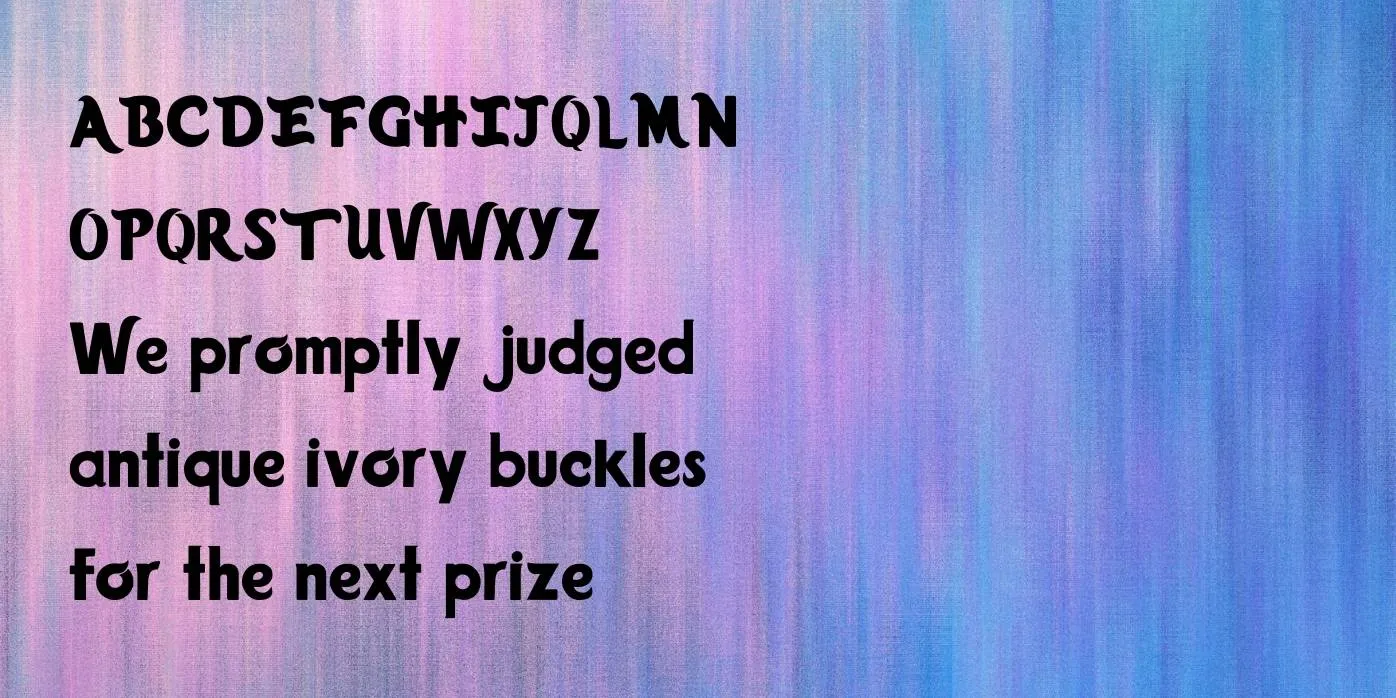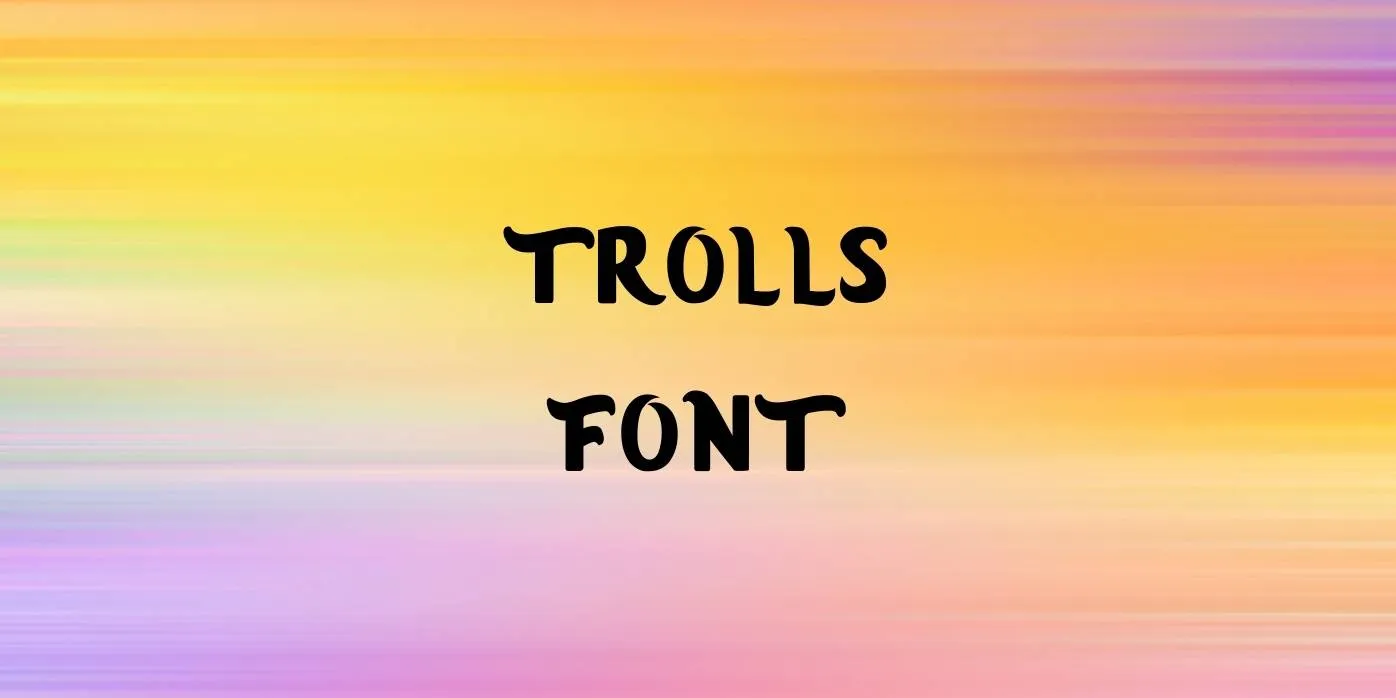
Trolls Font
Troll font is a Fun typeface that got from the American animated type movie “Trolls”. It belongs to a Fancy Font Family and the designer of this typeface is Jonathan Lopez. The font family is free for personal use only. Due to its glyphs and stylish characters, the font family is so popular.
It has uppercase and lowercase letters only but its playful characters are very frequent for any kind of fun design. Just like you can see the characters written on the poster of this movie, how charming and funny they are, and how much work is useful for your design projects. It has the ability to support many languages and it has an OpenType feature that will allow you to make another stunning character with the usage of this typeface. You can also generate this typeface through the online generator tool.